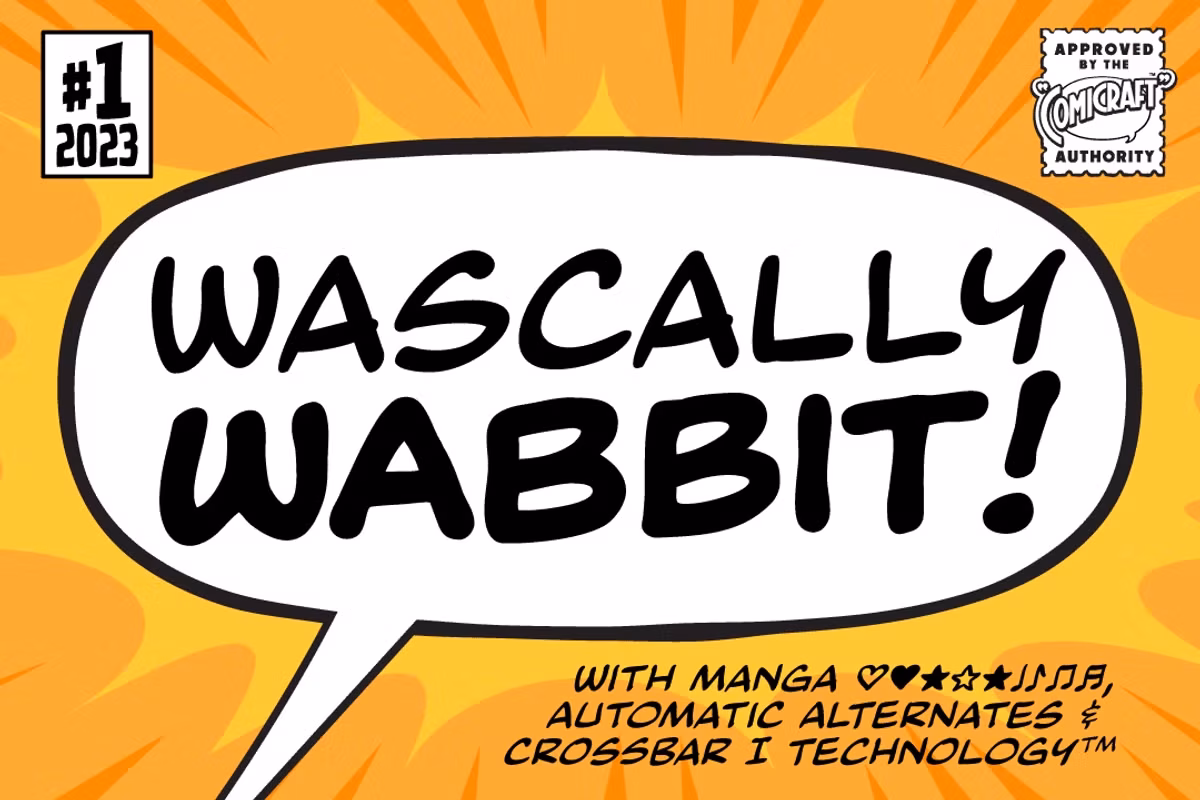
Please note, you must purchase this font for commercial use. However, you can easily download Wascally Wabbit Comic & Cartoon Font Free Download for personal use and testing purposes. Wascally Wabbit Comic & Cartoon Font is a fun, playful typeface inspired by the lively world of cartoons and comics. Perfect for children's designs, animated projects, comic strips, posters, and more, this font adds a sense of humor and creativity to any design. With its bold, rounded letters and energetic style, Wascally Wabbit Comic & Cartoon Font Free Download is ideal for projects that need a lighthearted, whimsical touch. Whether you're creating a comic book cover, a playful advertisement, or quirky social media graphics, this font ensures your message stands out in a fun and engaging way. Download Wascally Wabbit Comic & Cartoon Font Free Download today and explore its playful potential before opting for a commercial license.